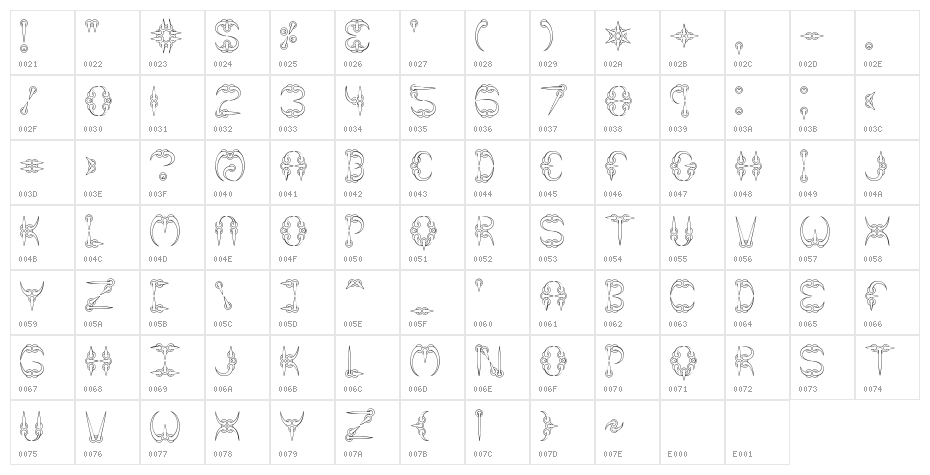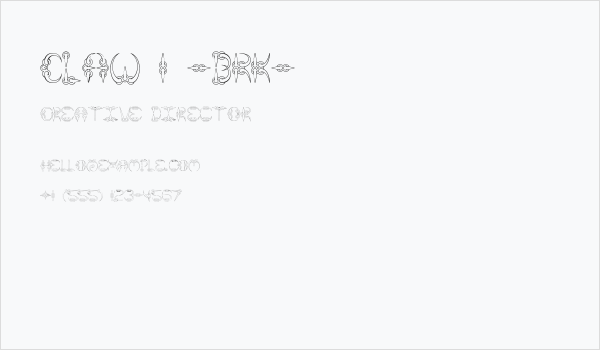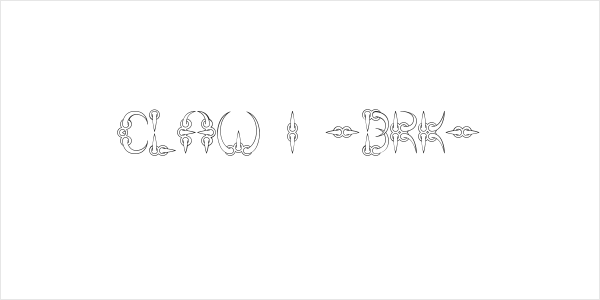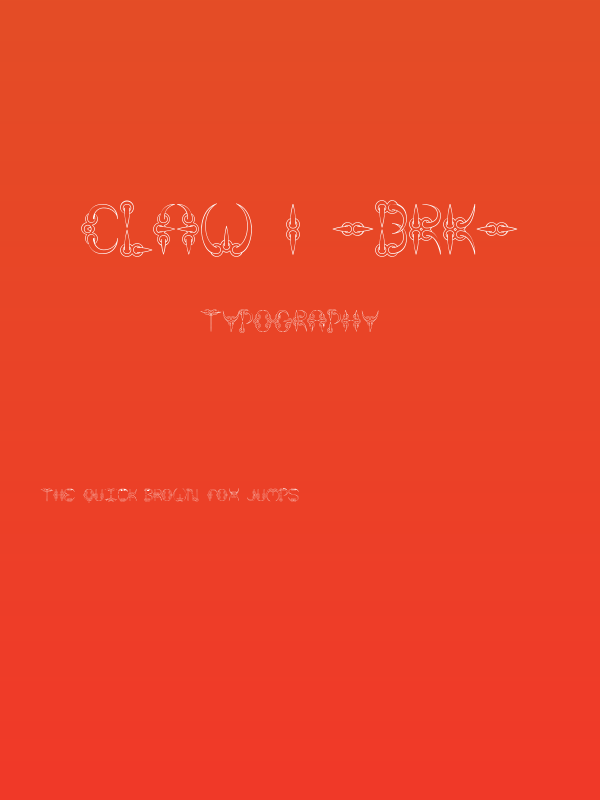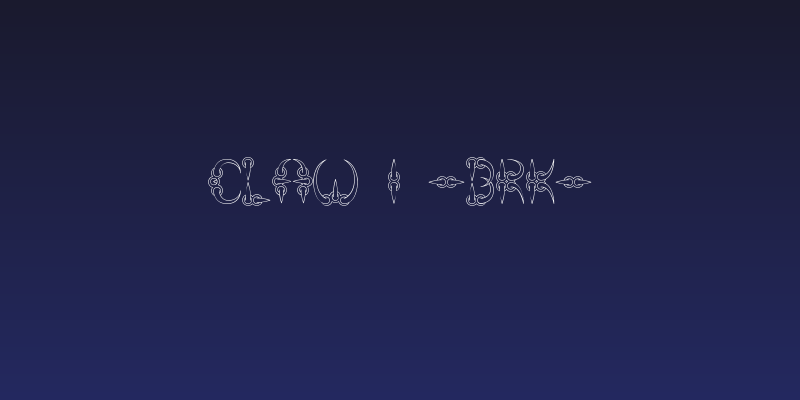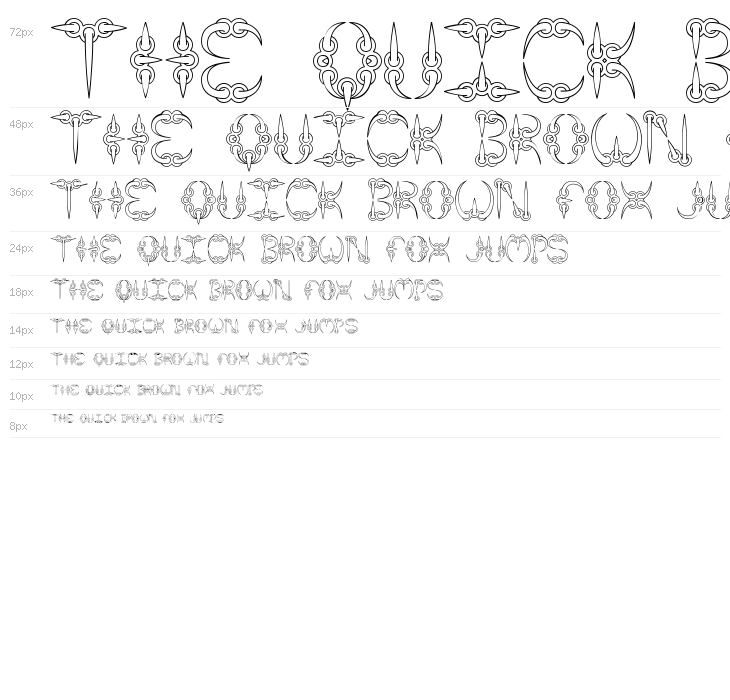
CLAW 1 -BRK- Font
CLAW 1 -BRK- Description
This font features an intricate and ornate design, characterized by sharp, pointed edges and swirling patterns that resemble tribal or gothic motifs. Each character is uniquely crafted with elaborate details, giving it a distinct and decorative appearance. The uppercase and lowercase letters maintain a consistent style, with a focus on symmetry and balance. The numbers and special characters are equally elaborate, incorporating similar design elements that unify the overall aesthetic. This font is highly stylized, making it suitable for projects that require a bold and artistic touch.
| Proposed Projects | Ideal for tattoo designs, album covers, fantasy-themed posters, and decorative signage. |